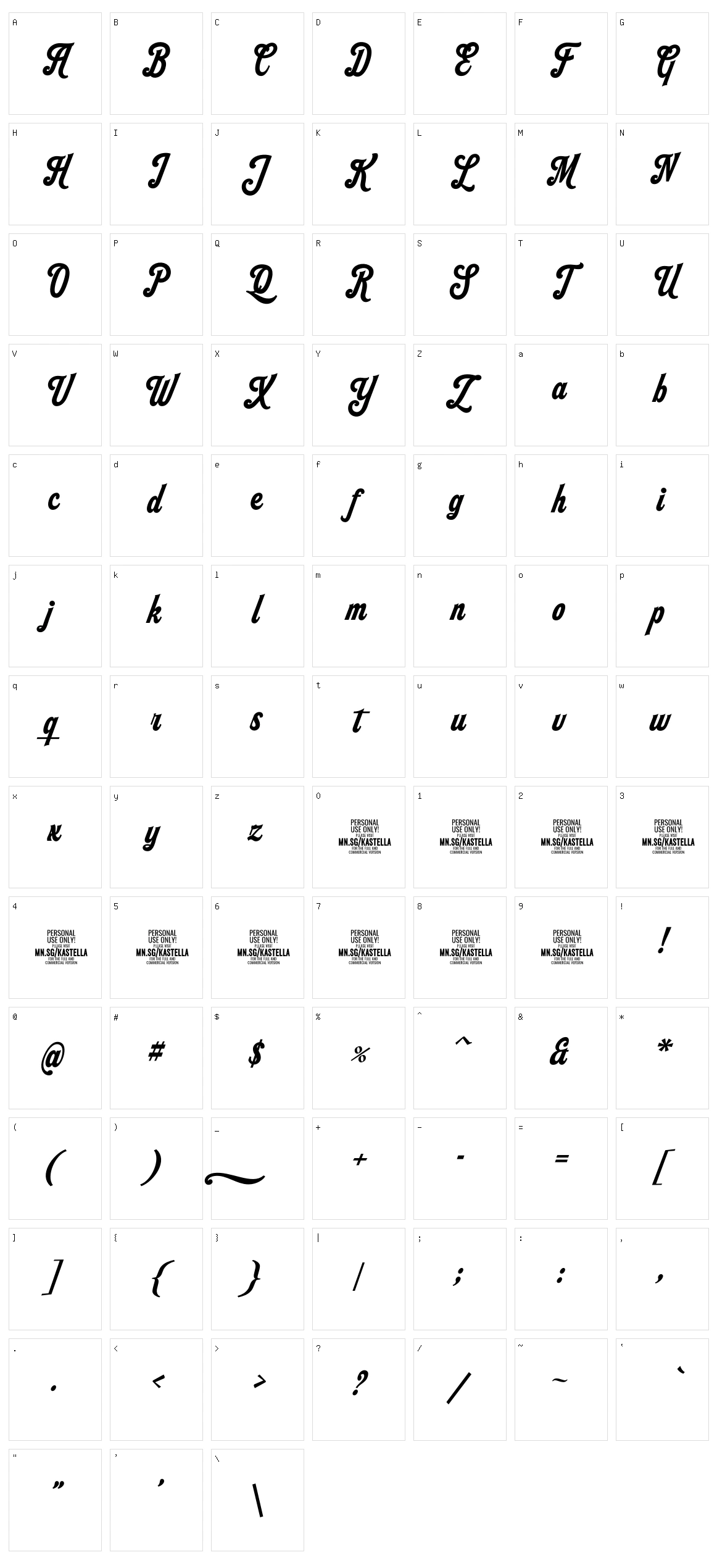
Kastella Script is essentially an artist's dream tool. It feels as if you're not just typing but crafting a visual narrative, almost like putting the finishing touches on a piece of design art. It's not about the text; it's about the story it tells.
The font is equipped with heavy letterforms and a range of stylistic swashes, providing a versatile toolset for modern design projects, from branding to editorial layouts.
Use underscore _ to make an underline.
Example: Bea_uty
Use multiple underscore for different swashes.
Example: Super____human
Kastella Script is built with advanced OpenType functionality and has a guaranteed top-notch quality, containing stylistic and contextual alternates, ligatures, and more features; all to give you full control and customizability. It has extensive lingual support, covering all Latin-based languages, and includes all the characters and symbols you'll ever need.
Behind this exquisite creation is Mans Greback. Known for pushing the boundaries of type design, Greback has ventured into the intricacies of aesthetic diversity with Kastella Script. His portfolio is a testament to his versatility and daring, turning simple alphabets into powerful visual narratives.